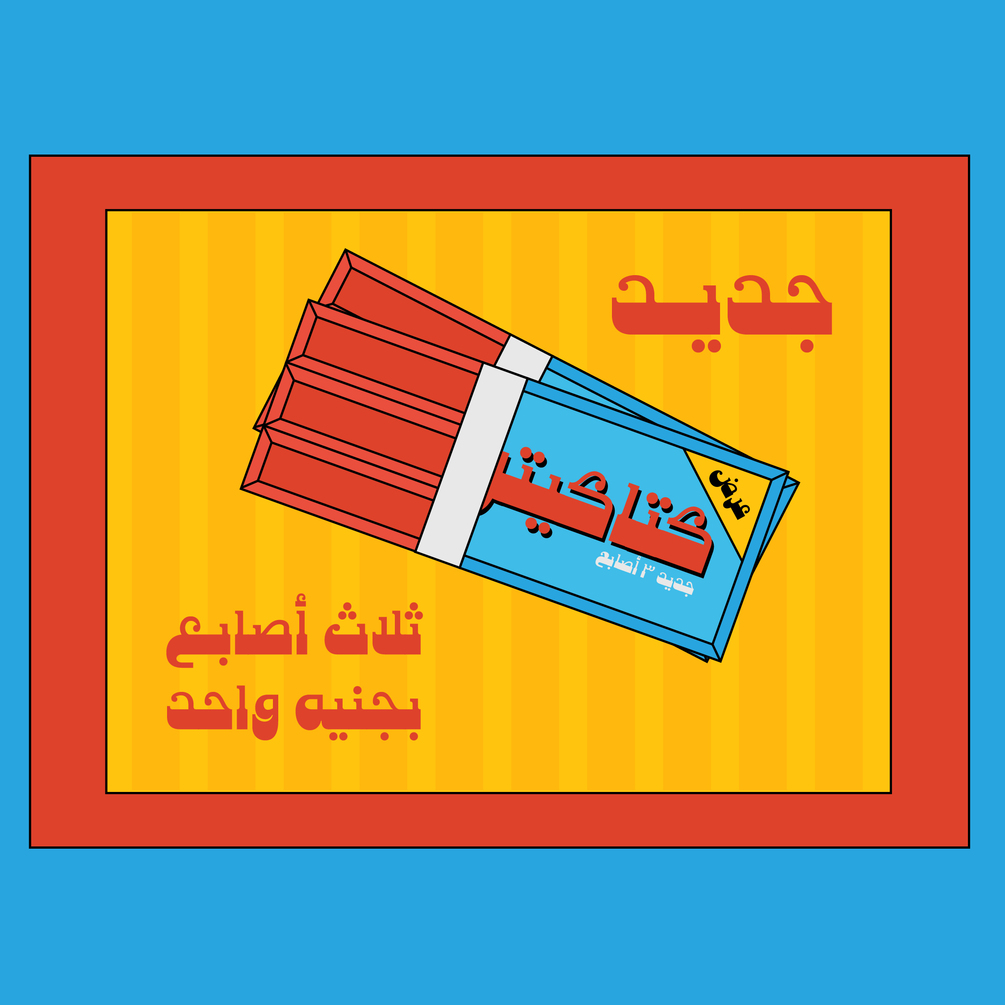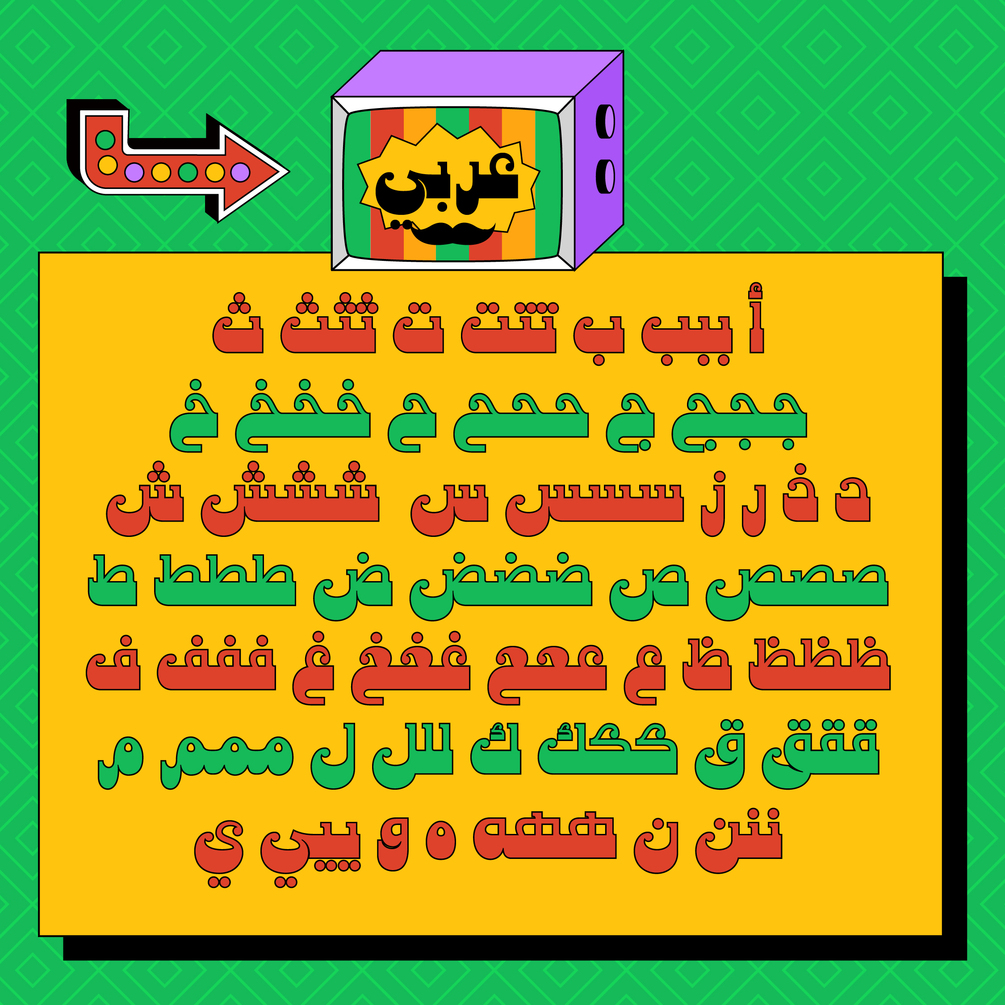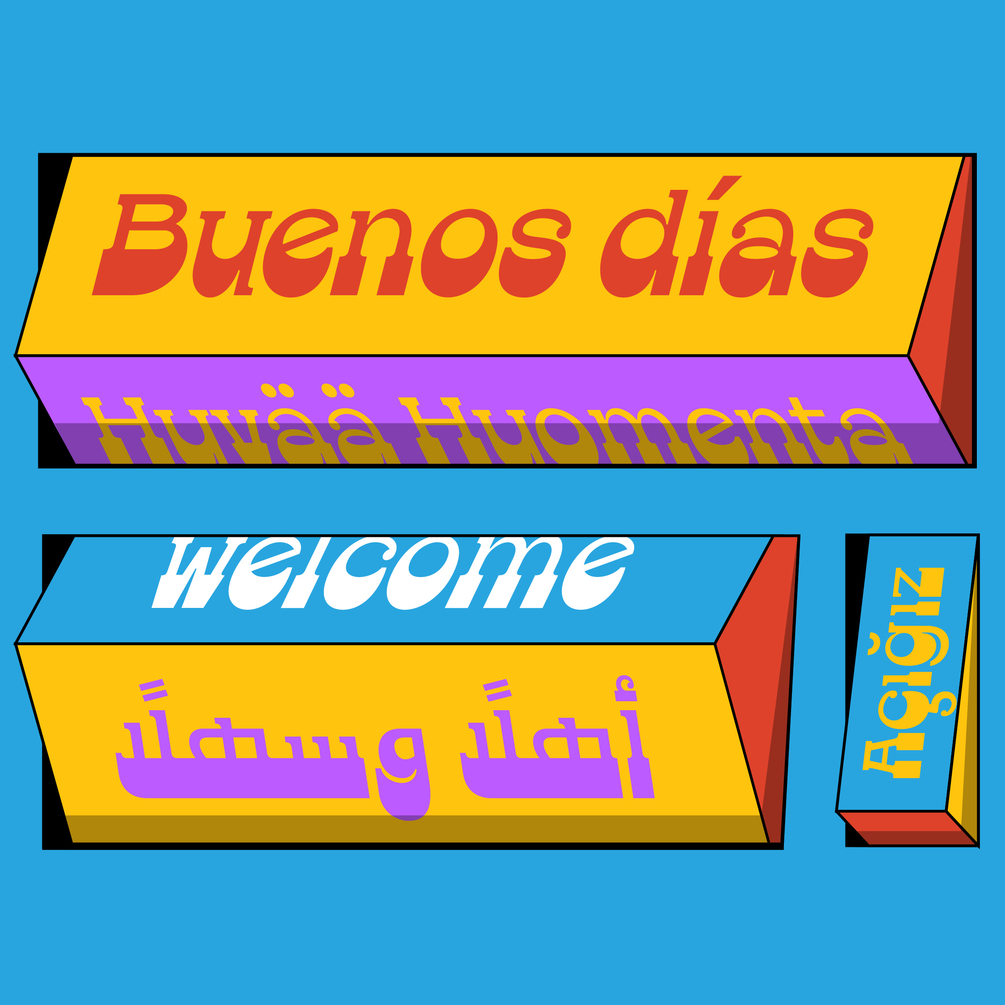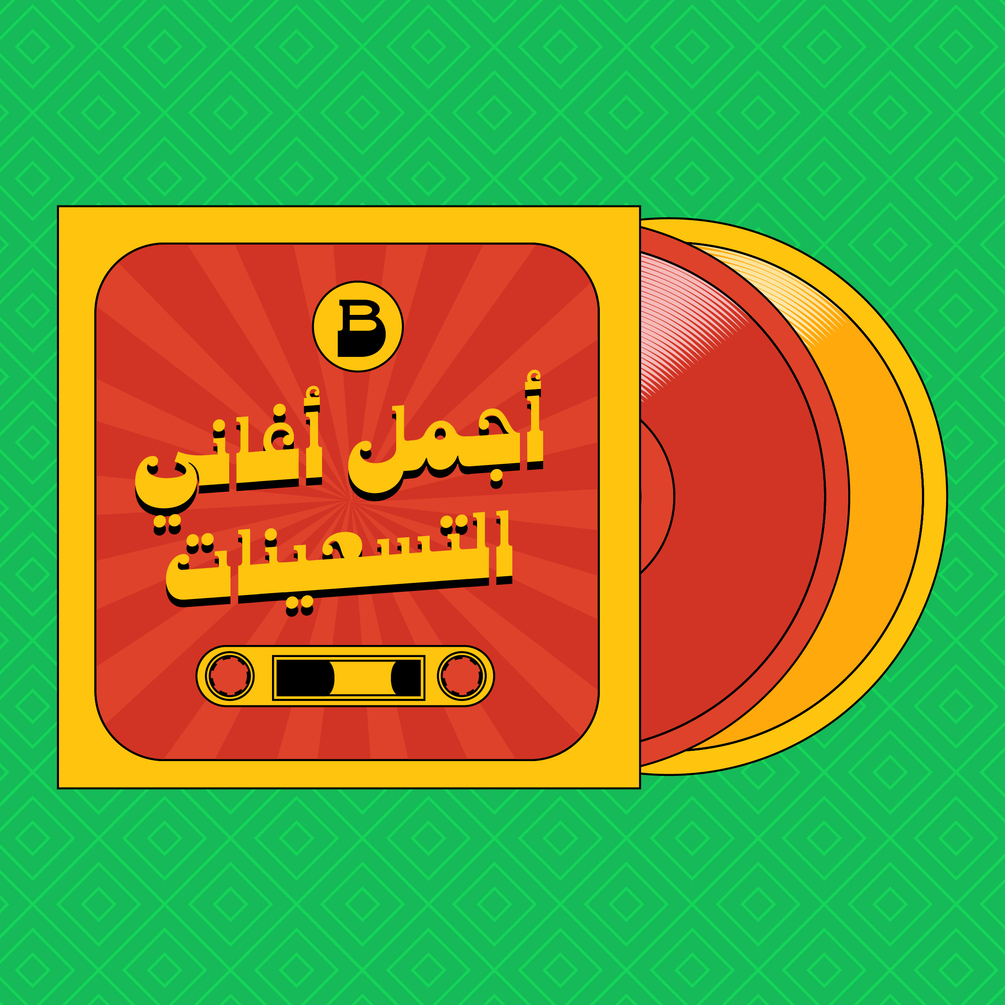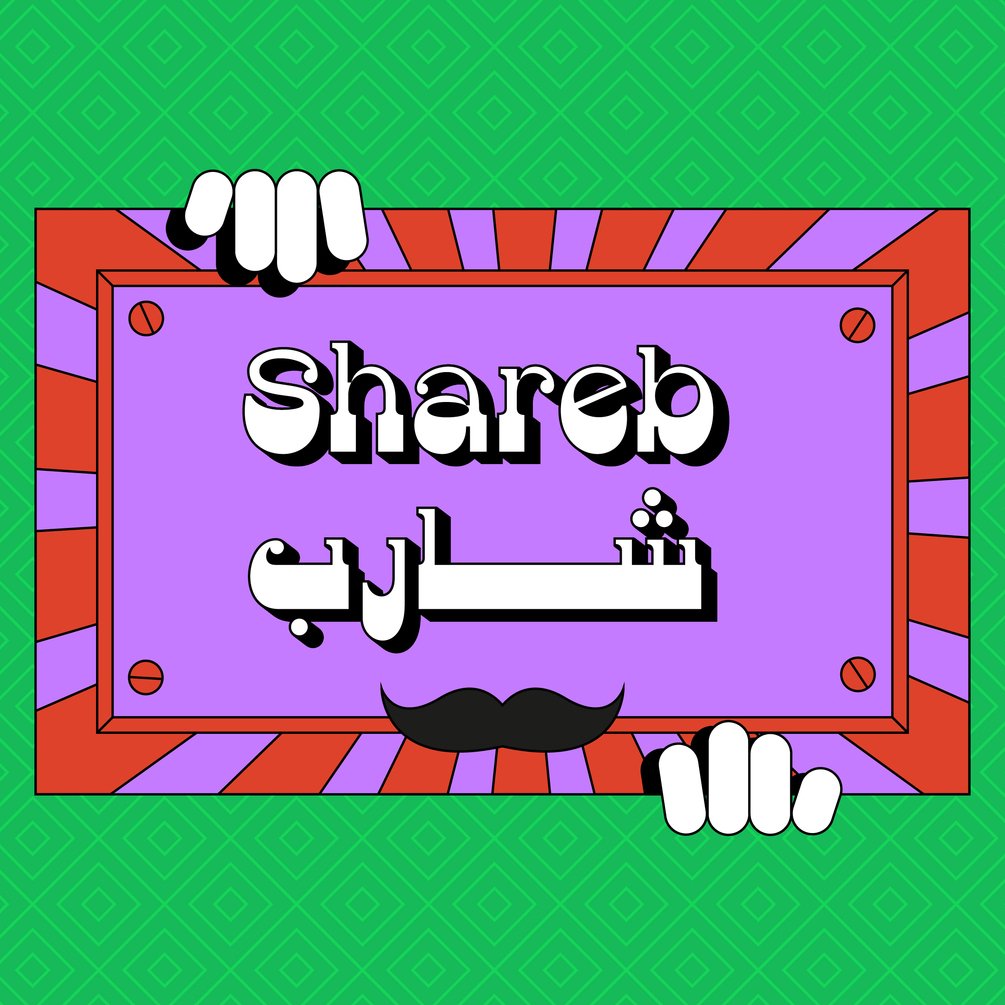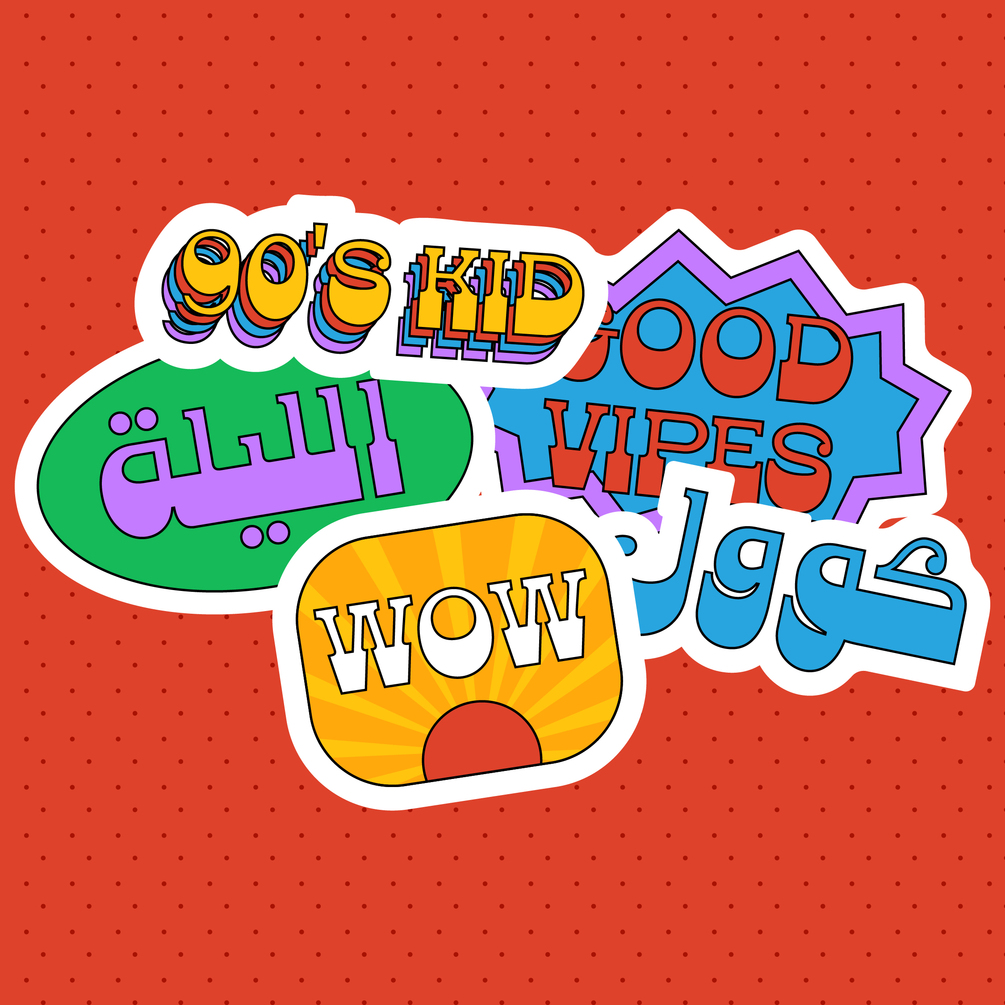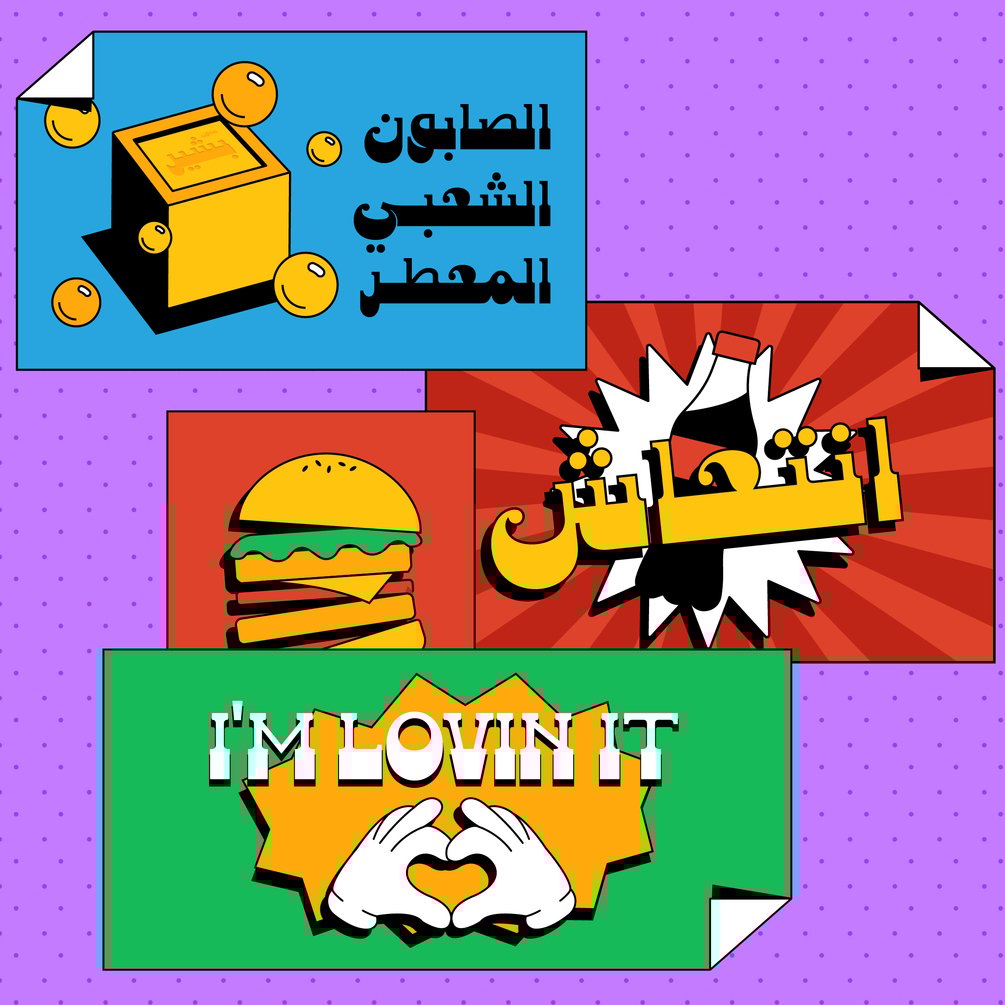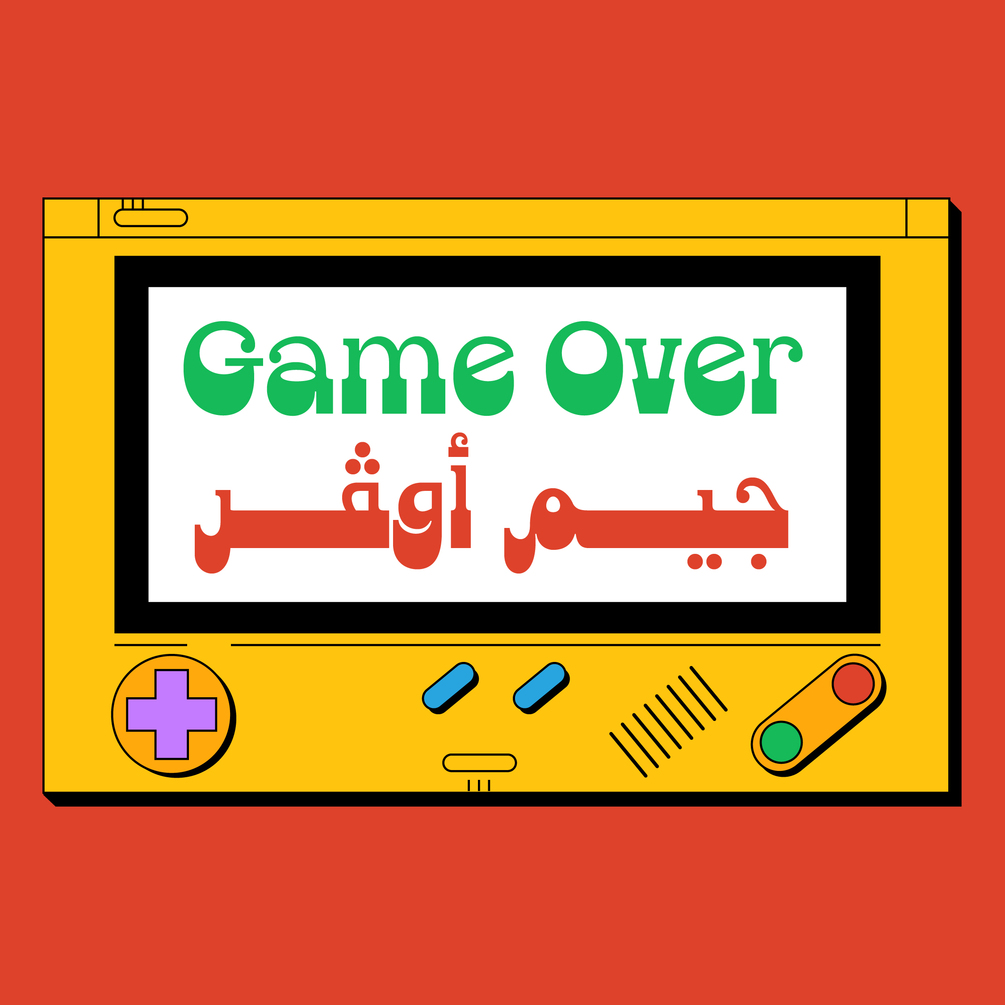
Shareb Typeface
Sharep typeface
Shareb font was initially designed with a different style compared to other Arabic typefaces. It was released as a free display typeface and became popular. Therefore, we decided to take it to the next level.
Accordingly, we worked on the Arabic letters again, enhancing and fixing them. We also added new features like stylistic sets, ligatures, and a complete Latin set of letters so that the font can be used in the most needed languages.
Now, we have a more professional, refined, and larger display typeface that can be used in more great projects.
Sans Arabic typeface
Arabic Designer
Abdelrahman Farahat
OpenType Features
Standard Ligatures, Discretionary Ligatures, Required Ligatures.
Latin Designer
Tarek Alsawwa